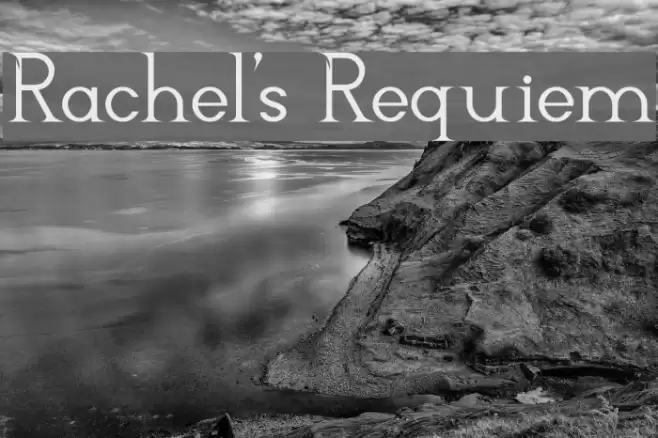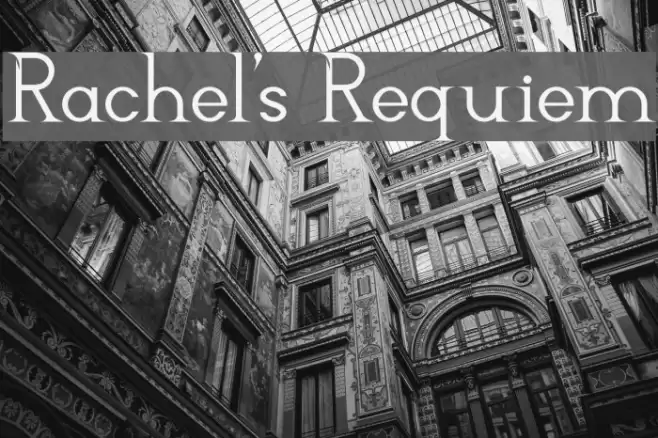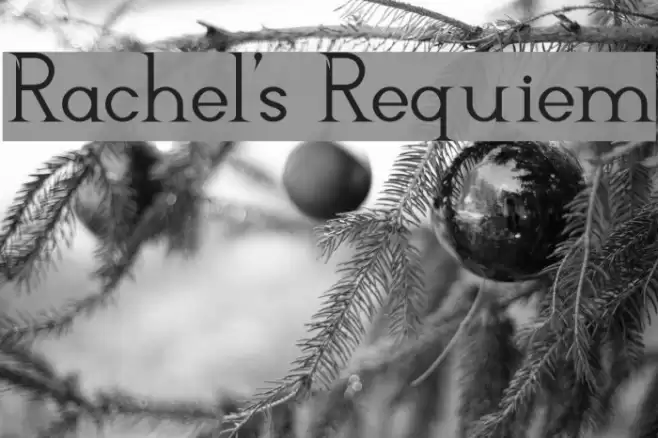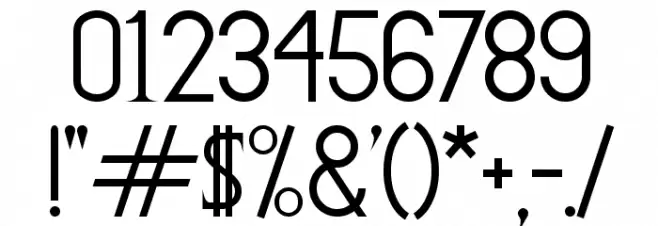
Rachel's Requiem Font
Rachel's Requiem Description
This font features a classic serif style with elegant and slightly elongated letterforms. The uppercase letters are bold and commanding, while the lowercase letters maintain a graceful and refined appearance. The numerals are clear and distinct, with a consistent stroke weight that complements the overall design. Special characters are well-integrated, maintaining the font's cohesive aesthetic. The serifs are pronounced, adding a touch of sophistication and tradition. This font is suitable for projects that require a formal and timeless look, such as invitations, editorial design, or branding for luxury products.
A classic serif font with elegant, elongated letterforms and pronounced serifs from Uncategorized fonts.
- Overall Style: Classic